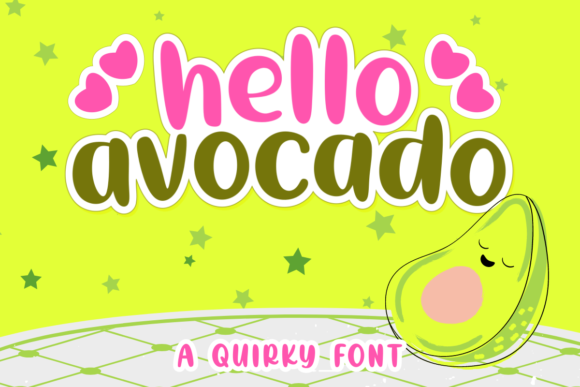
Venture into a world of cheer and whimsy with Hello Avocado Font, a display font that dances across the screen with a bold and playful persona. Crafted by the talented Deedeetype, this font is a tour de force of creativity, blending unique letterforms with a dash of quirkiness. Prepare to be captivated as Hello Avocado transforms your designs into captivating works of art.
Step into the realm of Christmas cheer with Hello Avocado Font, a festive font brimming with holiday spirit. Its charming characters dance and twirl like delicate snowflakes, evoking the magic of the season. Design enchanting Christmas cards, invitations, and festive social media posts that spread warmth and joy. Unleash your creativity and let Hello Avocado be the herald of your holiday greetings.
Dive into a sea of versatility with Hello Avocado Font, a font that adapts effortlessly to a myriad of creative projects. Its bold and playful nature lends itself seamlessly to logos, branding, packaging, and even website designs. Let Hello Avocado elevate your visual identity with its captivating presence. Its unique letterforms and quirky charm will ensure that your designs stand out from the crowd.
Embrace the boundless possibilities of Hello Avocado Font, a font that ignites the imagination and sets your creativity free. Its user-friendly nature makes it a joy to work with, whether you're a seasoned designer or just starting your creative journey. Hello Avocado empowers you to effortlessly craft designs that resonate with your audience, leaving a lasting impression.